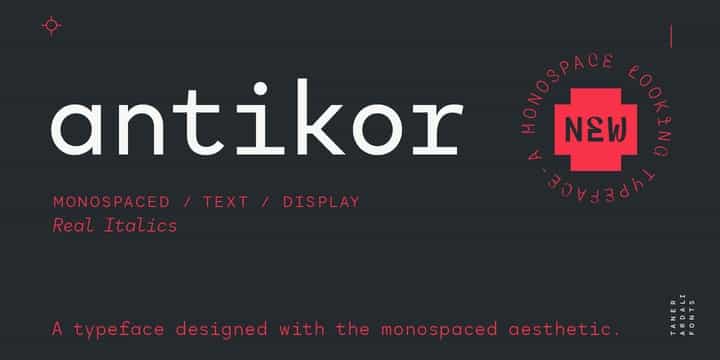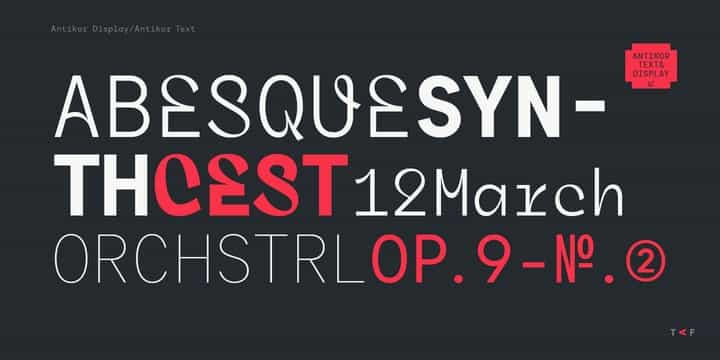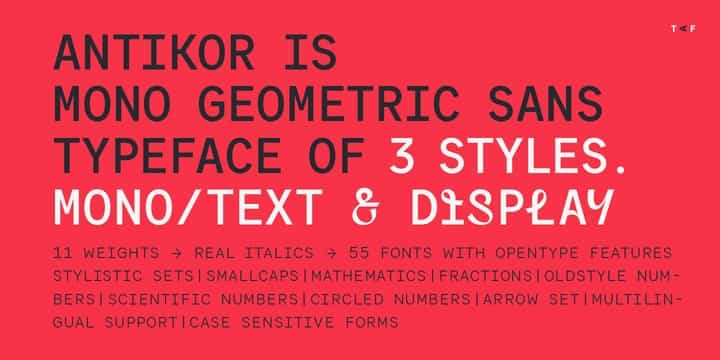
Antikor Text is for those who like to use monospaced fonts not only in coding but also in many other graphic design media. The design of the typeface was inspired by monospaced aesthetics without interfering with other features of monospace fonts. Antikor text is made up of proportional spacing and accurate kerning to avoid the poor rhythm and track in reading text. Besides, it has a lot of useful functions with plenty of special symbols and opentype features.